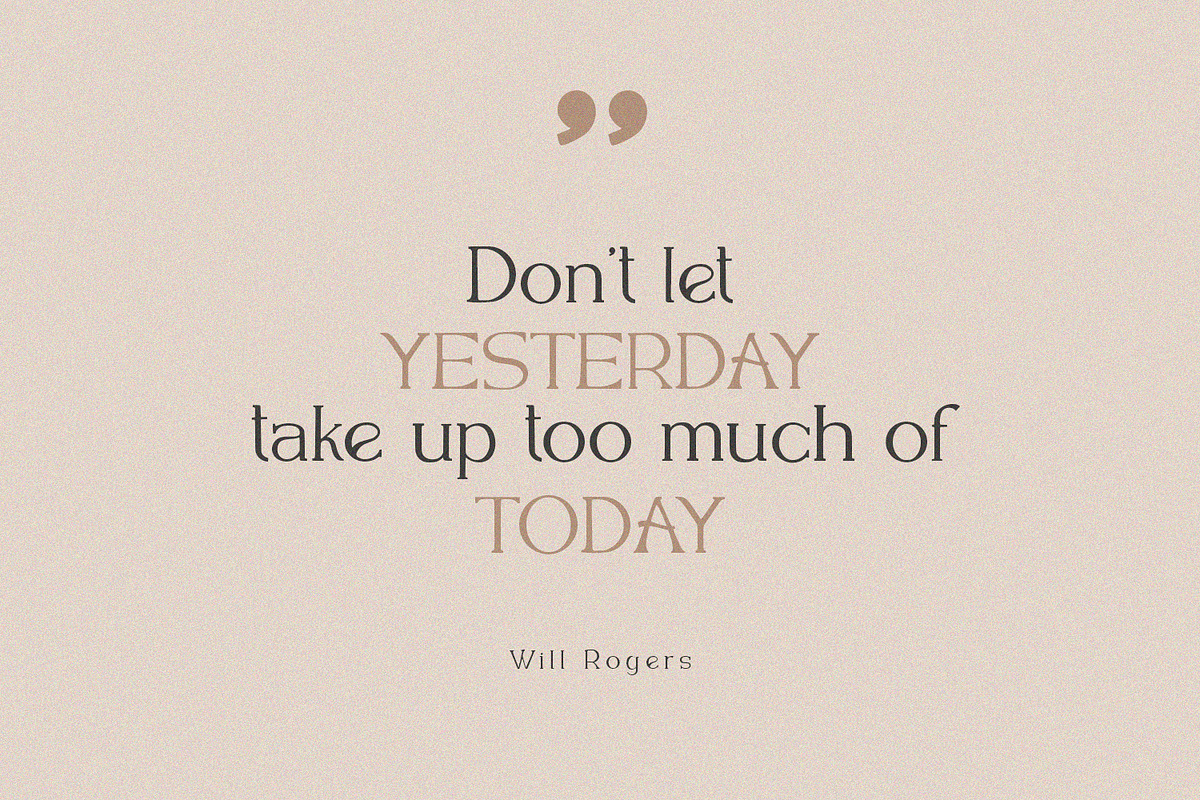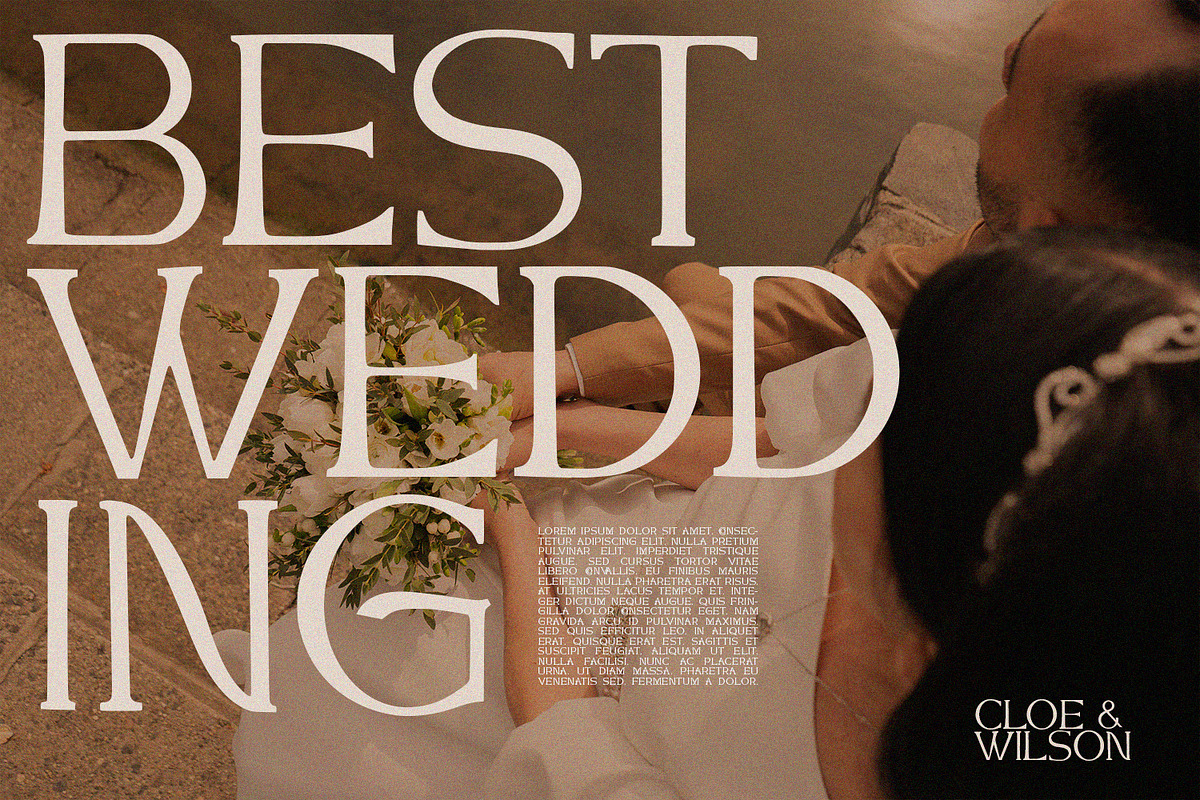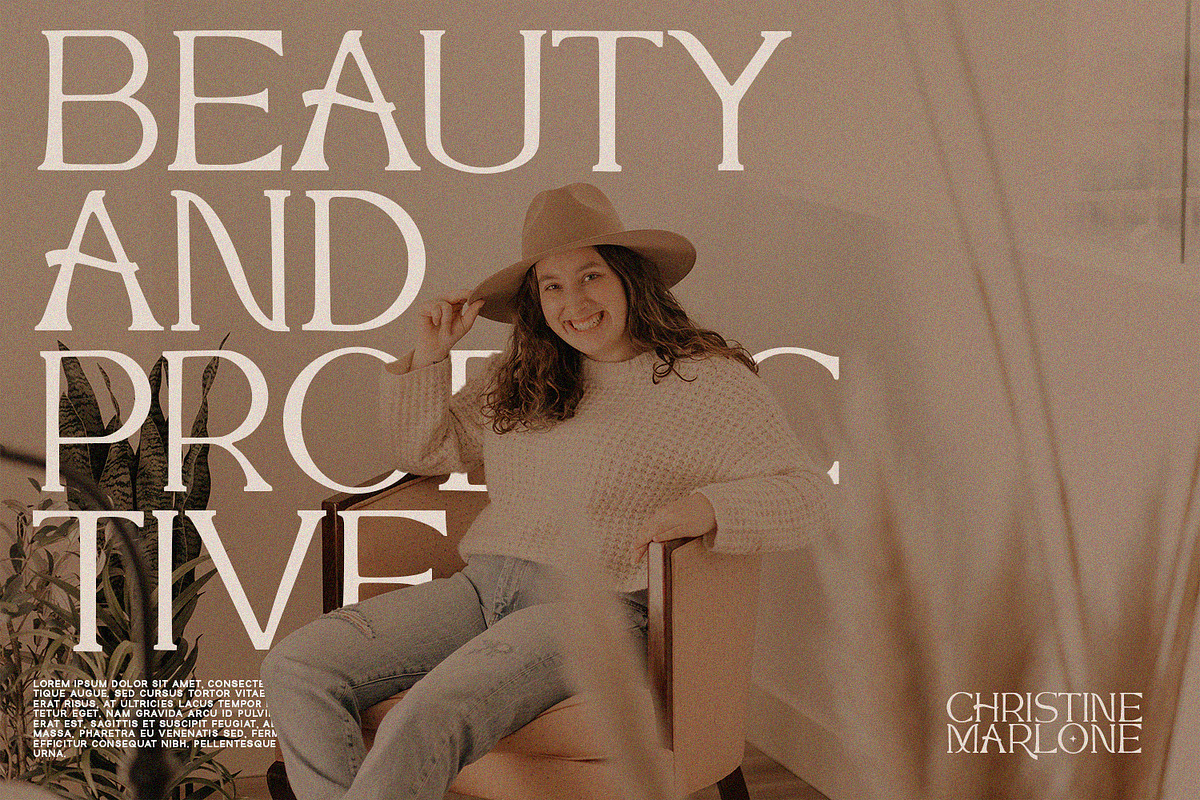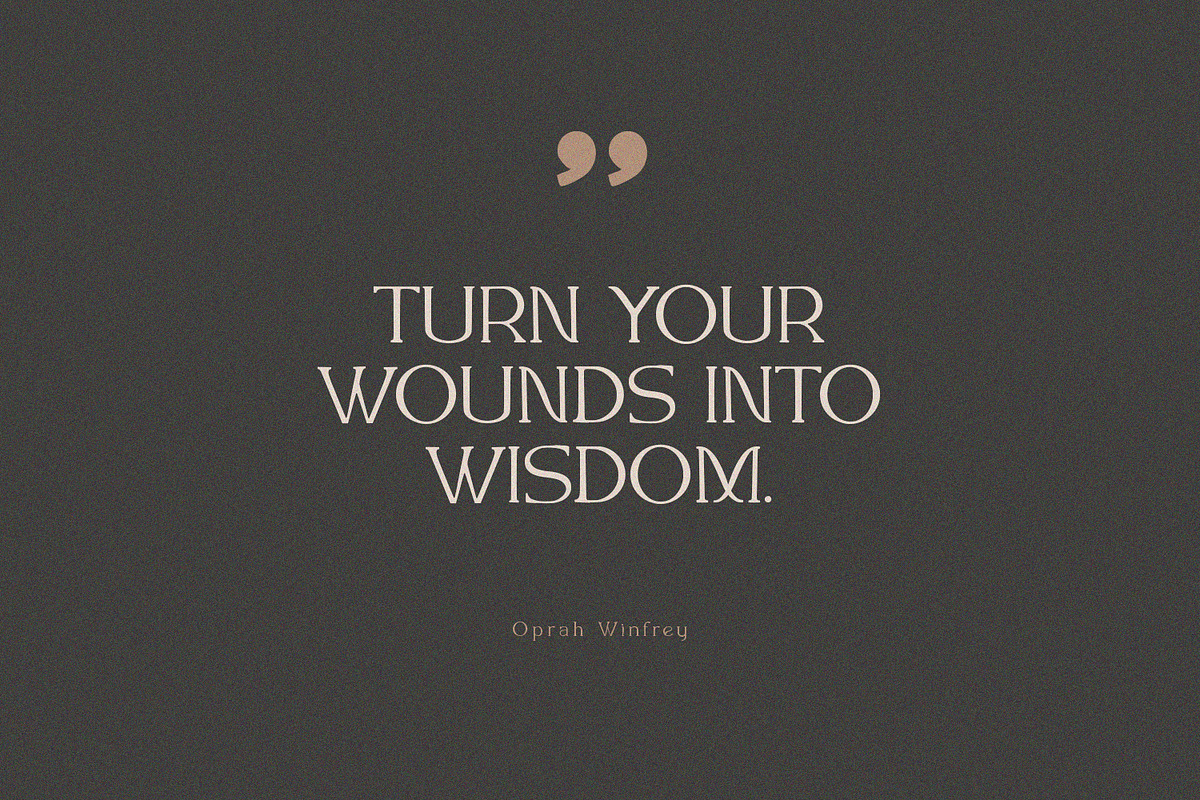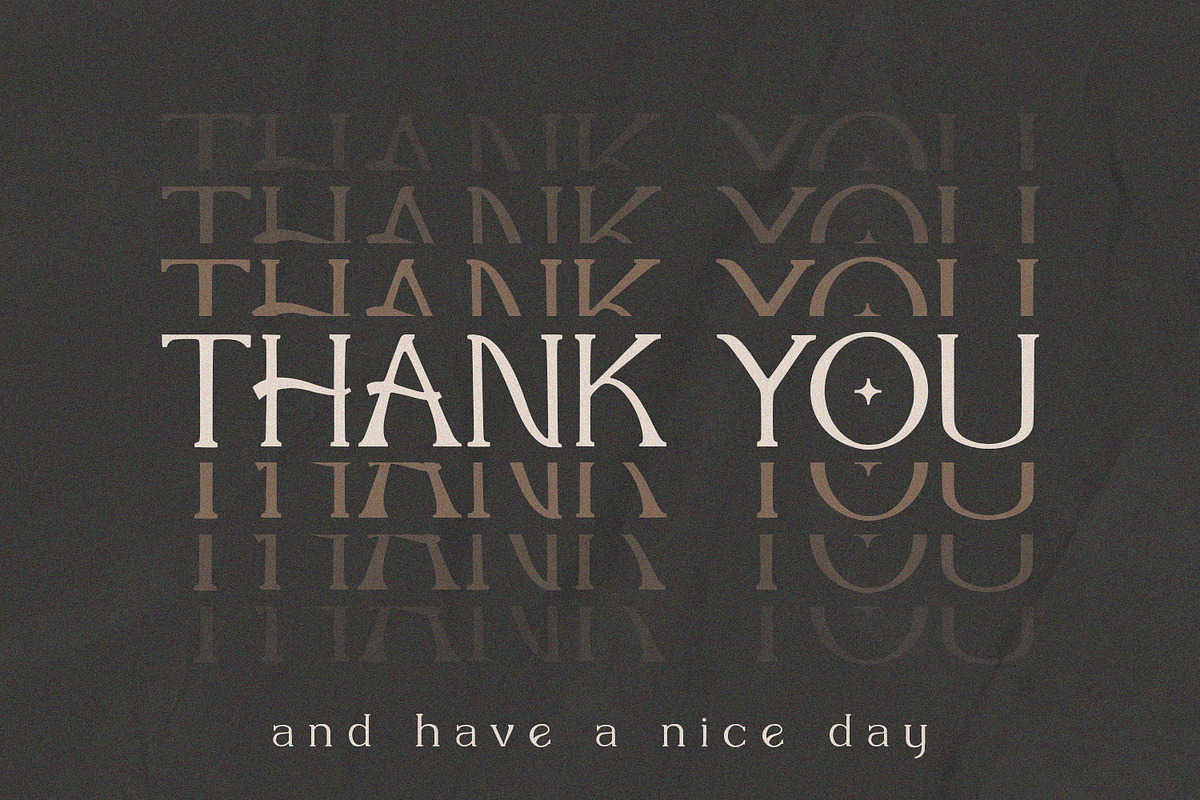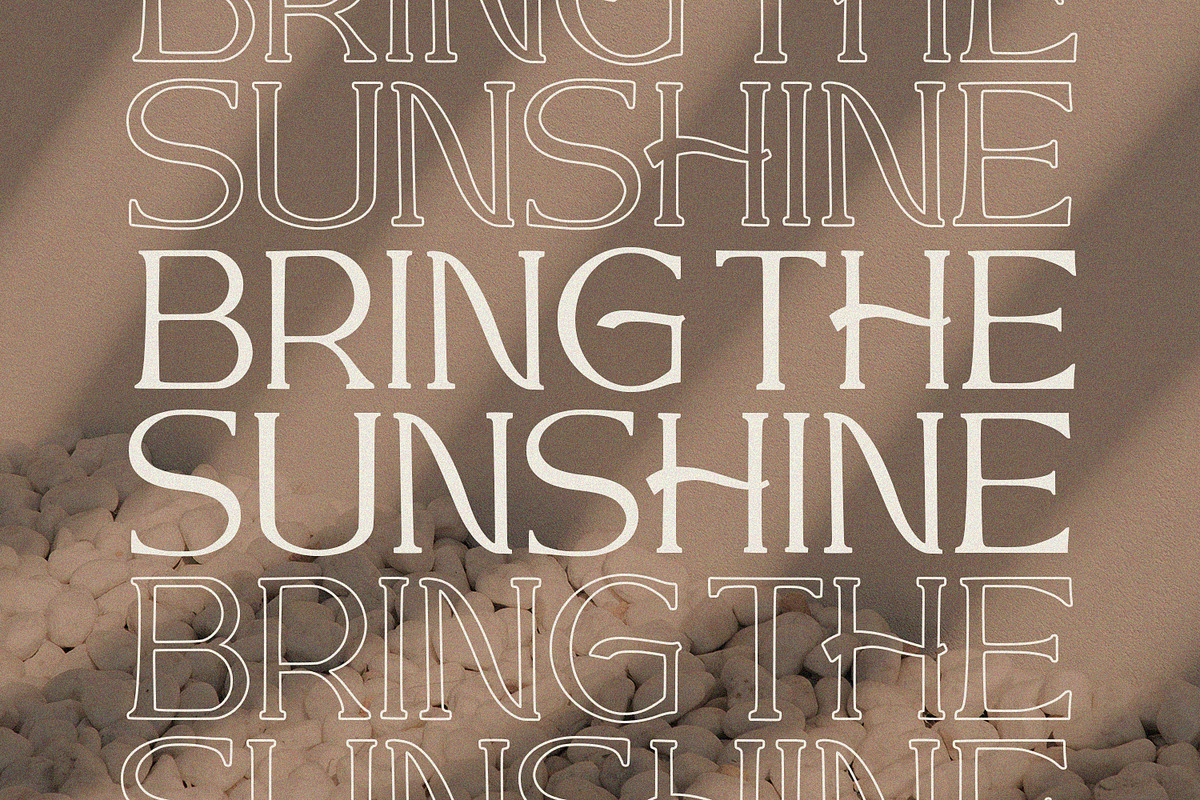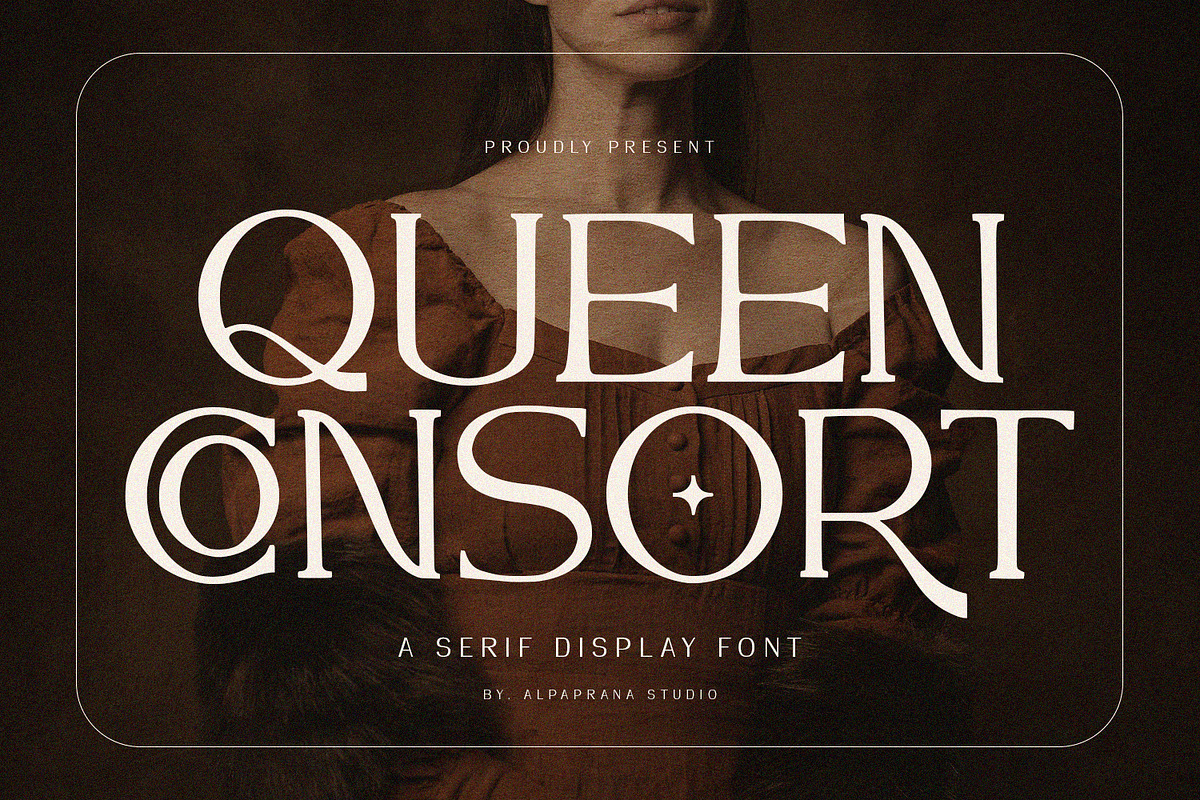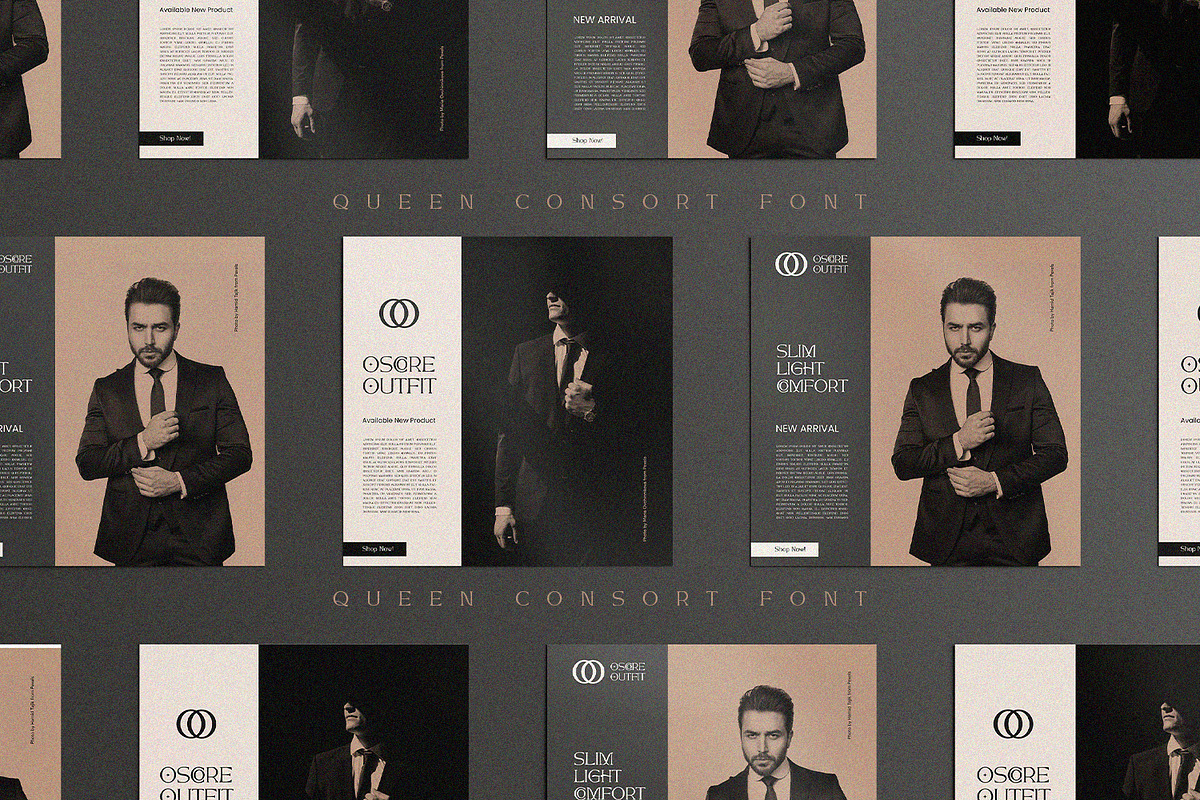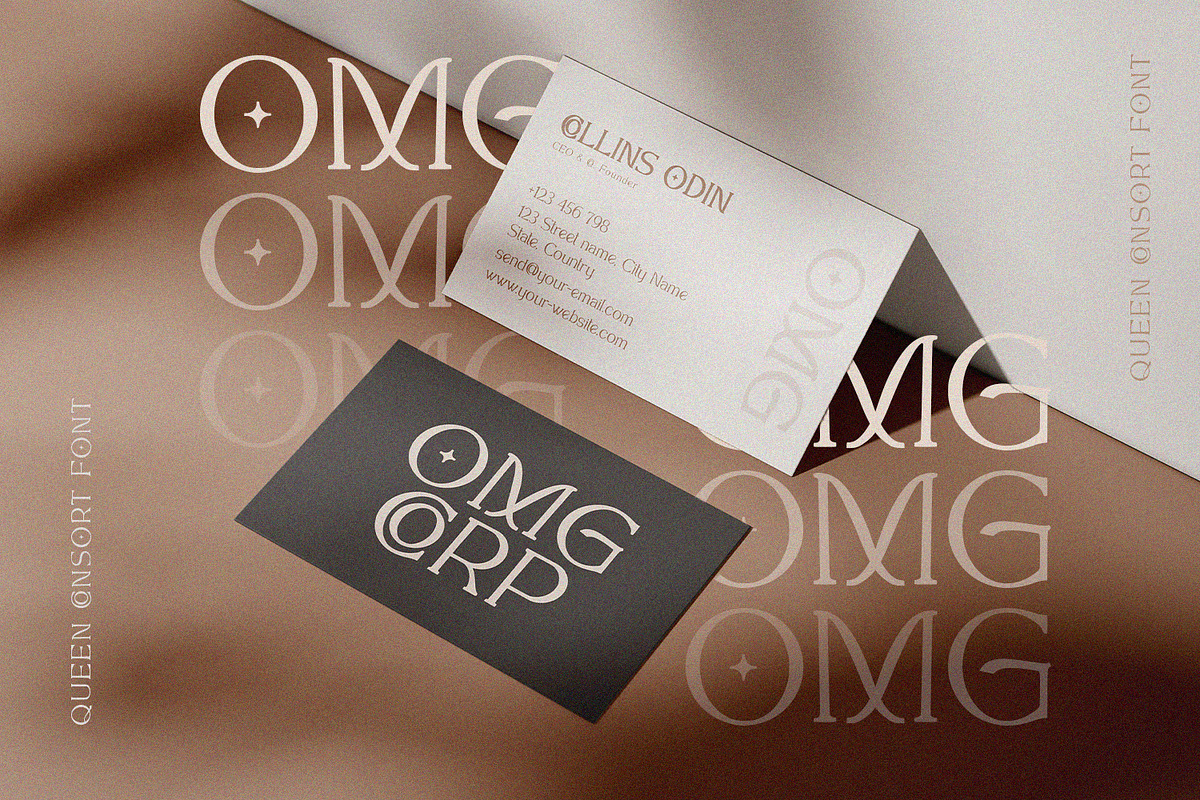
Queen Consort - Serif Font
Queen Consort is a serif font with elegant and modern feels. It will be perfectly used for Branding, Logo Design, Lettering, Logotype, Clothing, Poster, magazine, packaging, posters, shopping bags, t-shirts, book covers, photography, special events and other design project.